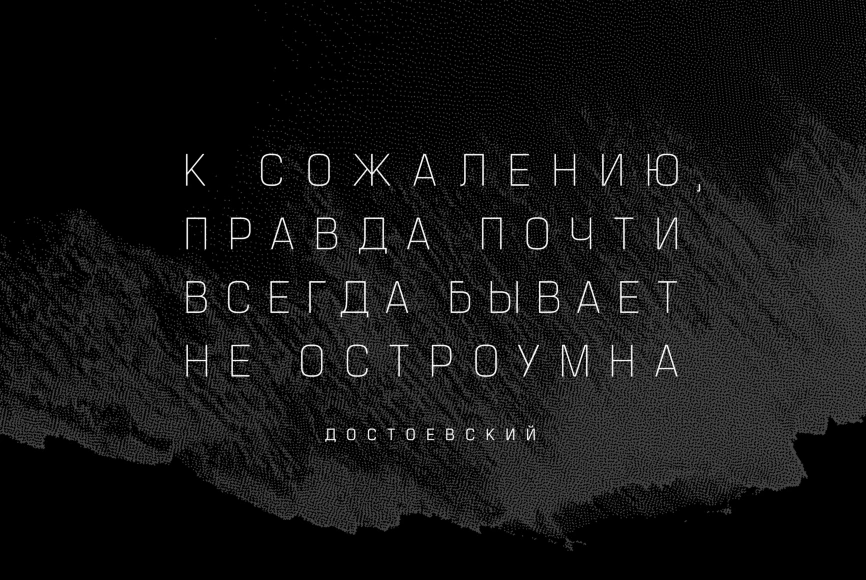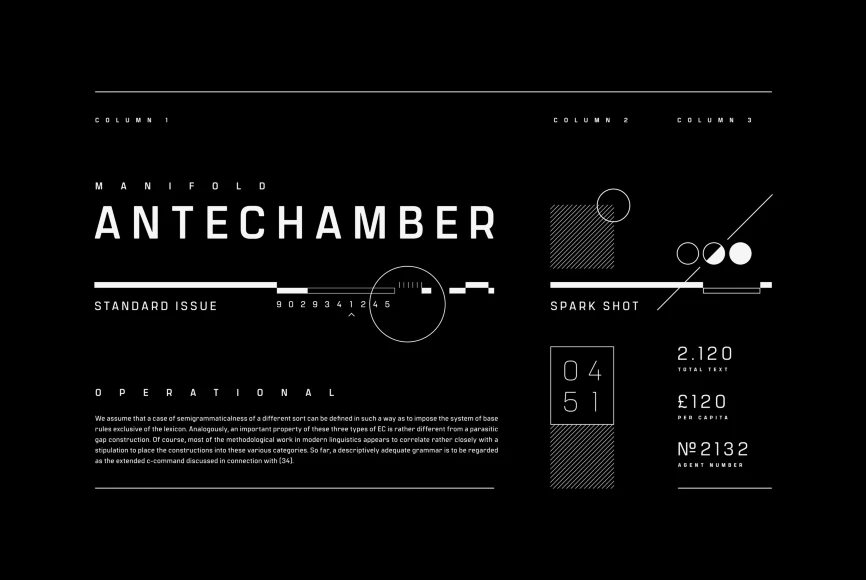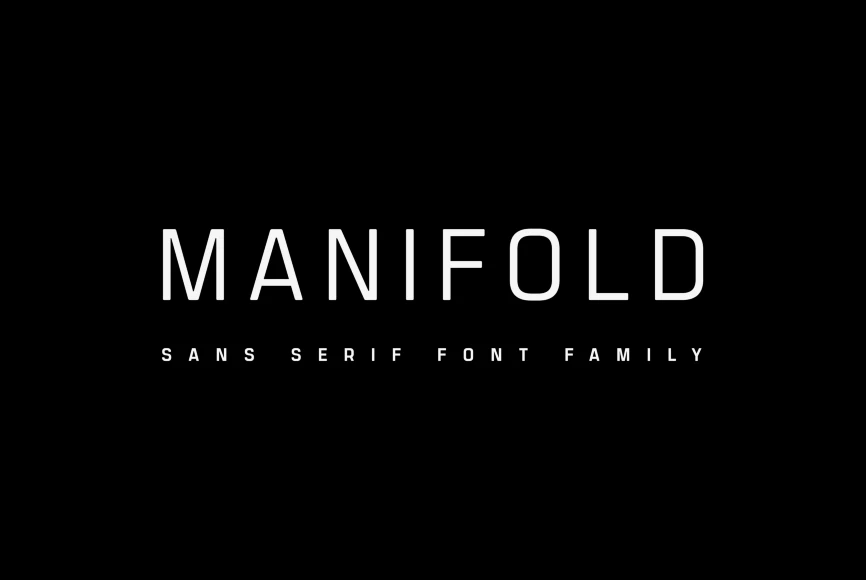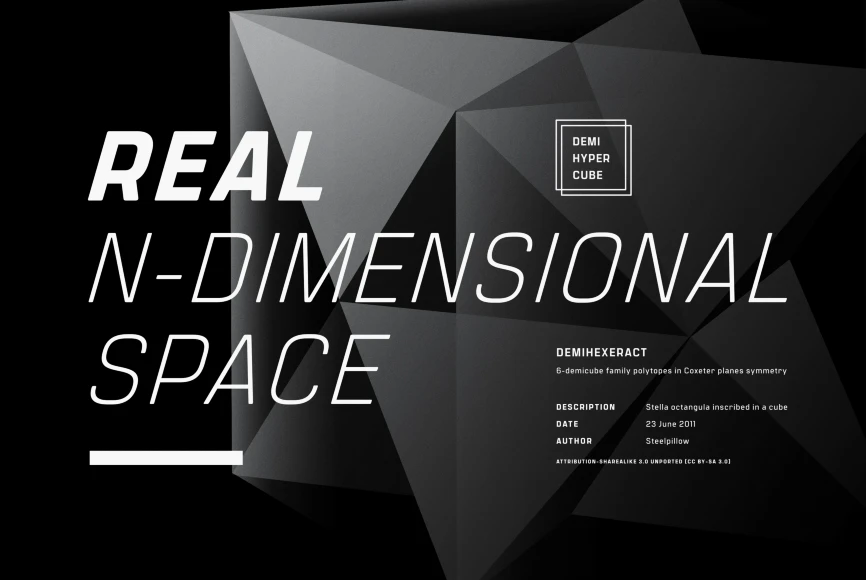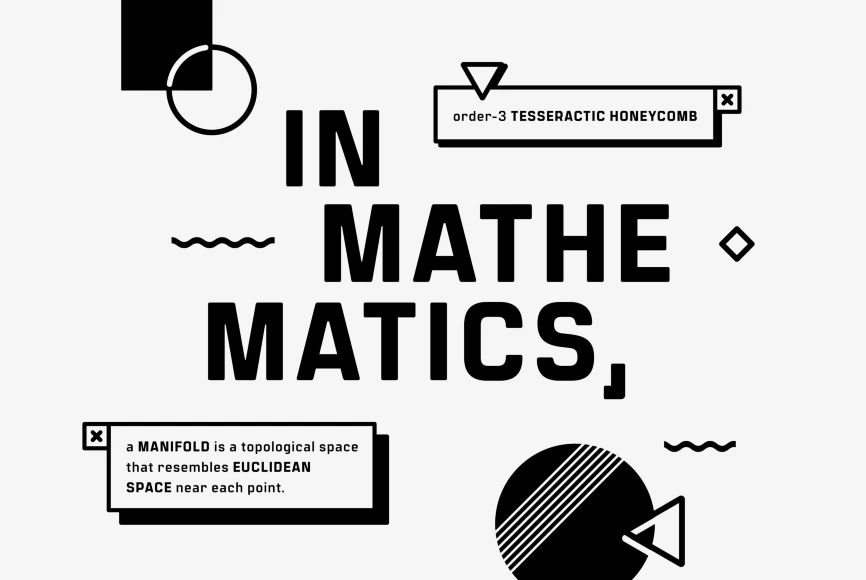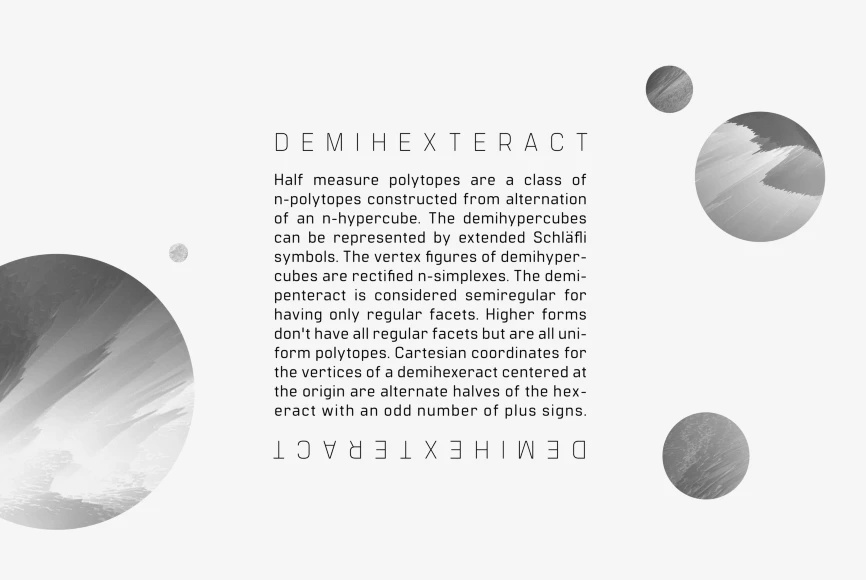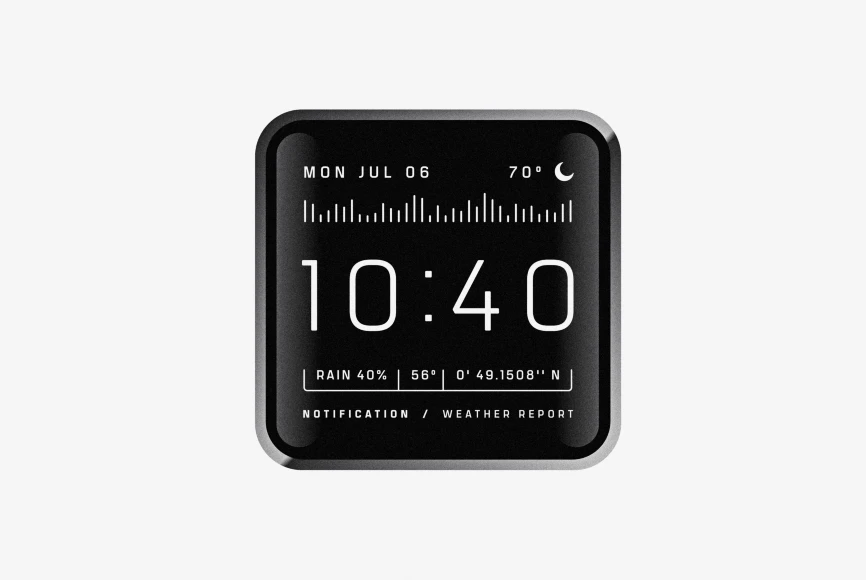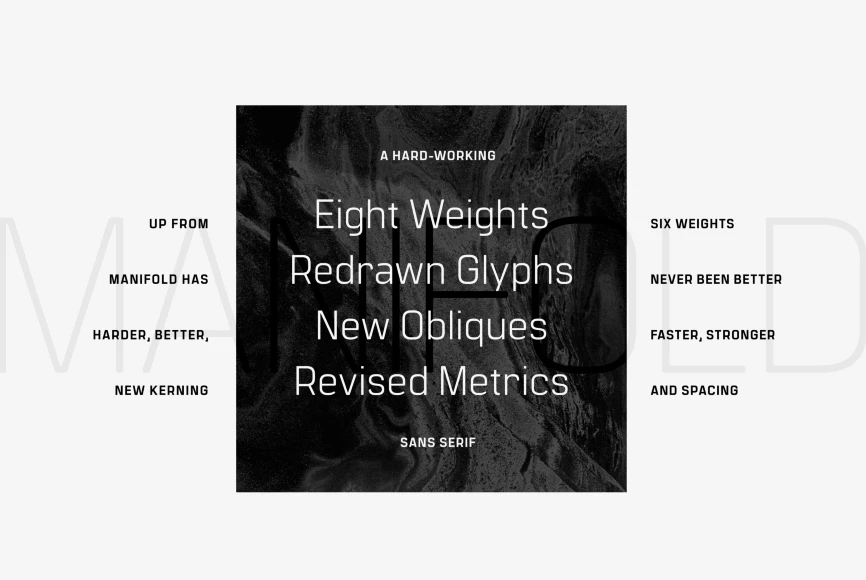
Manifold
Manifold CF is a utilitarian sans serif that merges terminal-inspired precision with a warm, unified structure and a tall x-height. Ideal for interfaces, short copy, and — tracked out — cinematic titles and headlines. The Extended style pushes this engineering further, creating wide, confident forms suited for tech, sports, editorial, and bold branding. With eight weights, matching italics, and support for Latin, Cyrillic, and Vietnamese, it covers more than thirty languages.